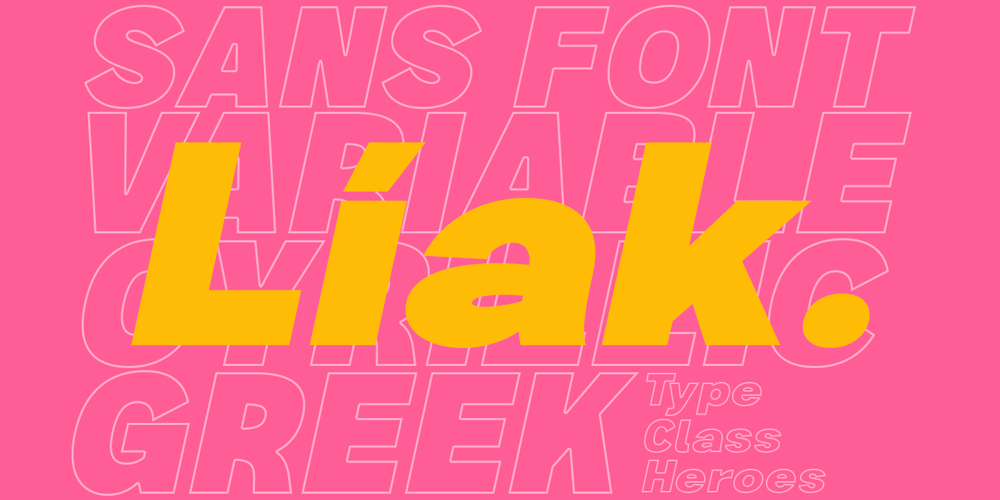
Liak Font Family was designed by Pande Made and published by TypeClassHeroes. Liak contains 18 styles and family package options. Liak is a sans serif family. Design with various width and weight that you can explore and combine creating rhythm and texture for comfortable reading. This font supports more than 100 Latin-based languages and has extensive Cyrillic and Greek support for languages like Russian, Bulgarian, Ukrainian, and many more.In variable version, it allows multiple options when designing, adapting to different composition solutions.Feature Uppercase & Lowercase Number & Symbol International Glyphs (Cyrillic & Greek) Multilingual support Ligature Feel free to drop us a message any time and follow my shop for upcoming updatesShoot me on email at: Suandana_Ipandemade@hotmail.comHope you enjoy it.